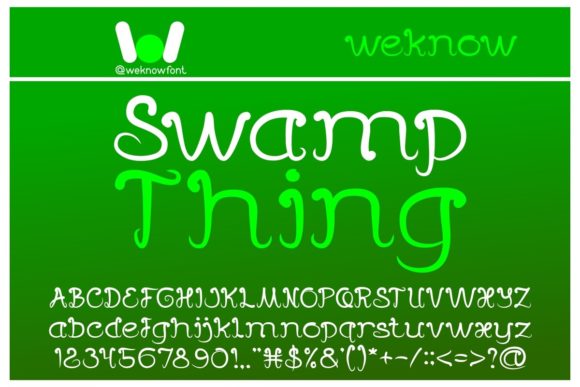
About Swamp Thing Font
“Swamp Thing” emerges as an enchanting handwritten font, a script that carries an air of mystique and allure. With its captivating strokes and flowing lines, this font becomes a vessel of enchantment, infusing a touch of intrigue into every design it graces. Imagine it as a key that unlocks a world of creative possibilities, spanning from heartfelt greeting cards to captivating headlines.
Visualize “Swamp Thing” as a brush that dances gracefully across the canvas, leaving behind letters that exude an aura of mystery and romance. Its versatility enhances your projects, transforming them into visual wonders that resonate with a sense of magic and creativity. As you incorporate this font into your designs, you embark on a journey where your concepts evolve into captivating visual narratives.
This versatile script font possesses the power to adapt to a wide spectrum of applications. From heartfelt greeting cards to attention-grabbing headlines, it adds a touch of intrigue that elevates your project to a realm of enchantment.
In a design landscape where aesthetics evoke emotions and transport audiences, “Swamp Thing” becomes your tool for crafting designs that intrigue and leave a lasting impact. Allow its enchanting handwritten strokes to be the artistic threads that weave through your creations, infusing them with a sense of mystery and allure. Embrace the allure of “Swamp Thing” and watch as it transforms your projects into captivating showcases of artistic brilliance, inviting all who engage with them to explore the depths of creativity and imagination.